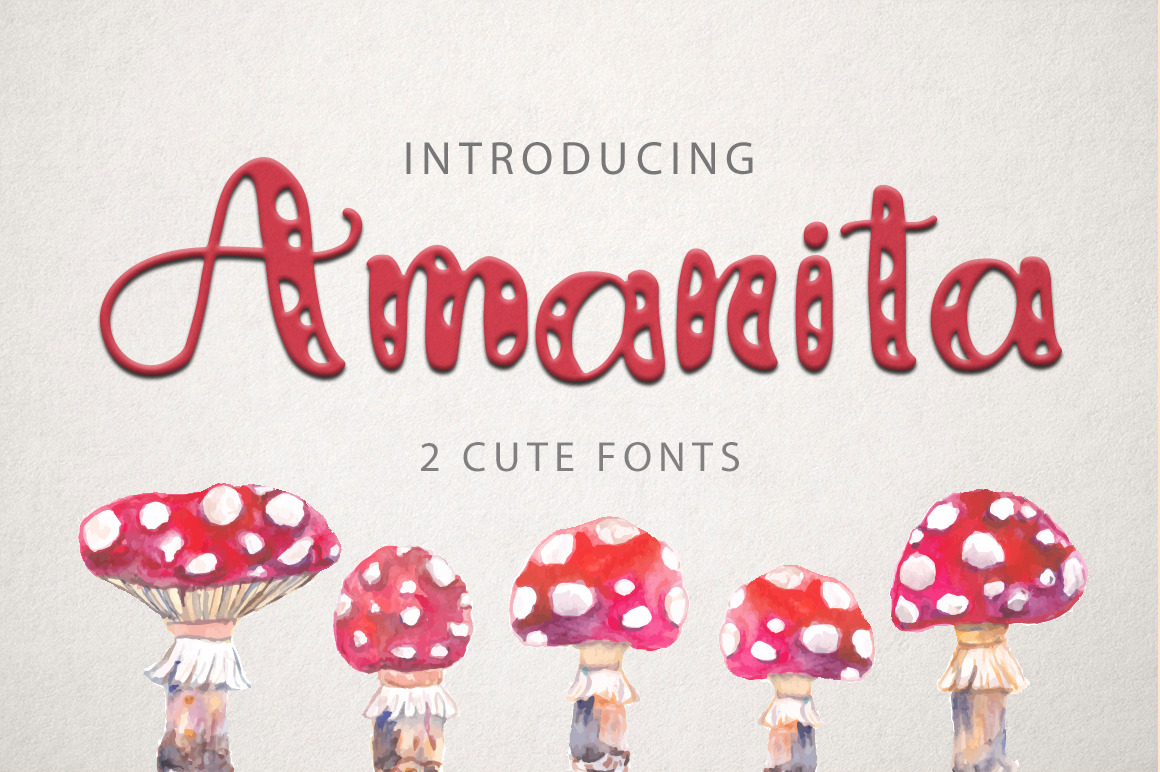
Amanita font.
You will get two super fun, hand-drawn fonts that comes with two sets of lowercase and uppercase letters and some ligatures, so that your designs can really get that "hand-drawn" feel.
Amanita dots font is really reminds amanita mushrooms. Decorative circles in letters make this font super cute and perfect for lovely fun designs.
Amanita font is a clean version of the first font. This font fits perfectly with the previous one and looks great on its own
Fonts include multilingual support : north, south and central Europe.